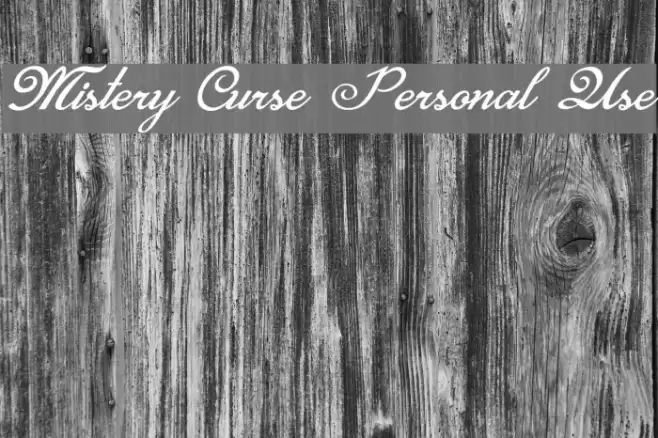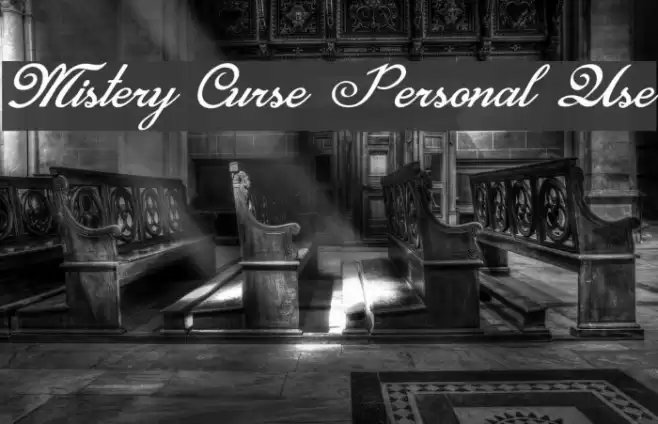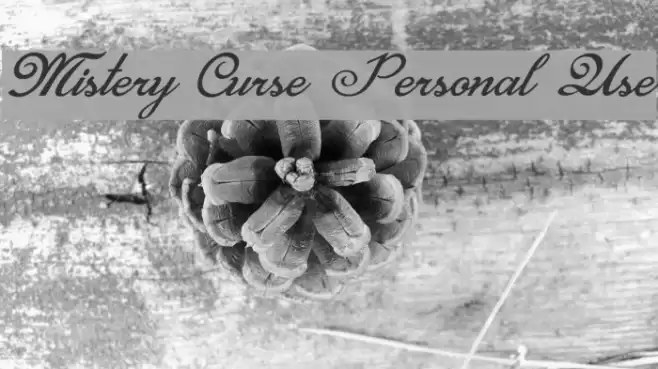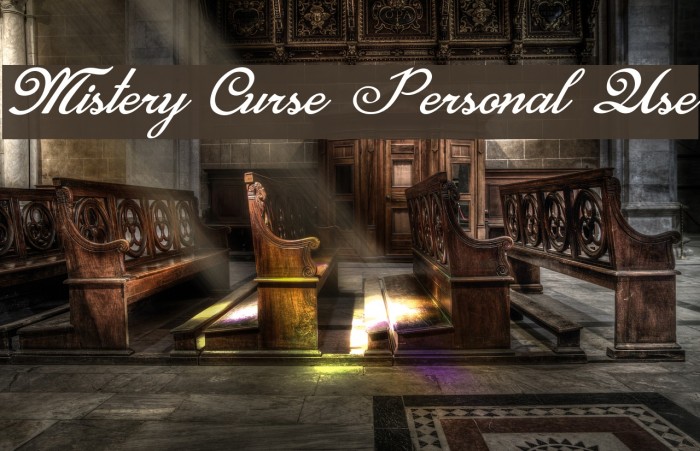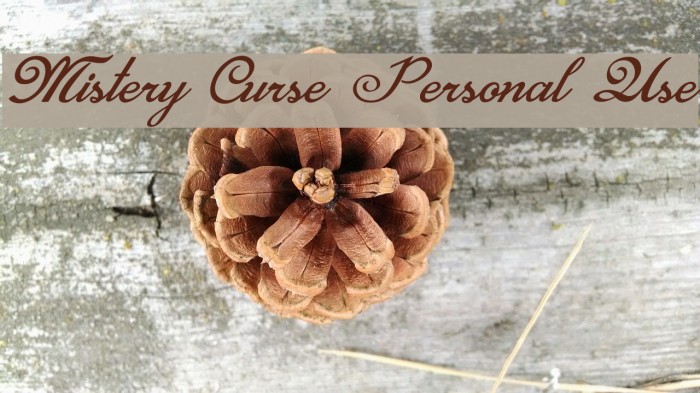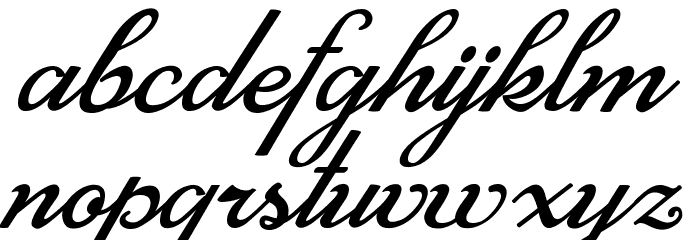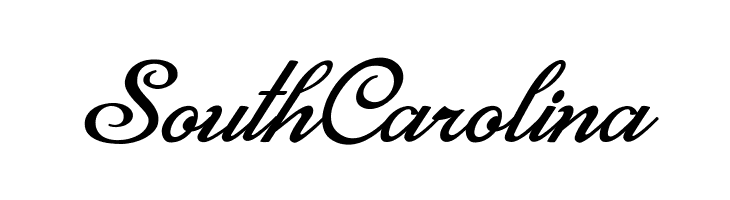
Mistery Curse Personal Use Font
Mistery Curse Personal Use Description
This font showcases an elegant and flowing cursive style, characterized by its smooth, interconnected letterforms. The uppercase letters exhibit a sophisticated flair with decorative swashes, while the lowercase letters maintain a consistent, graceful rhythm. The overall design is reminiscent of classic calligraphy, offering a sense of refinement and artistry. The numerals and special characters are crafted with the same attention to detail, ensuring a cohesive appearance across all glyphs. This font is suitable for projects that require a touch of elegance and sophistication.
An elegant cursive font with flowing, interconnected letterforms and decorative swashes from Calligraphic fonts.
- Proposed Projects: Ideal for wedding invitations, elegant branding, personal stationery, and decorative headlines.
- Overall Style: Classic
- Use Case: Headlines, Logos, Invitations